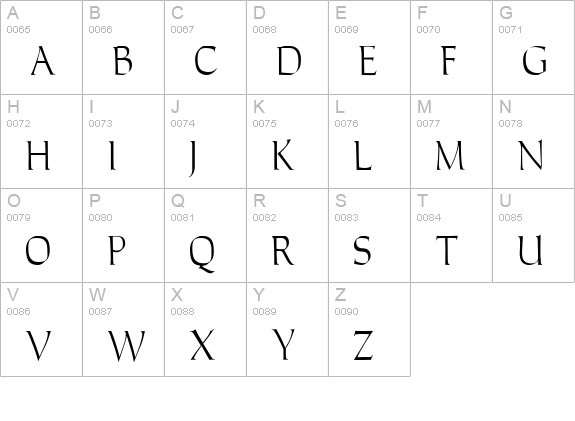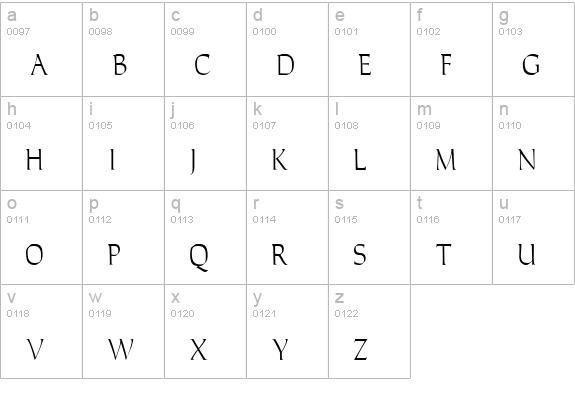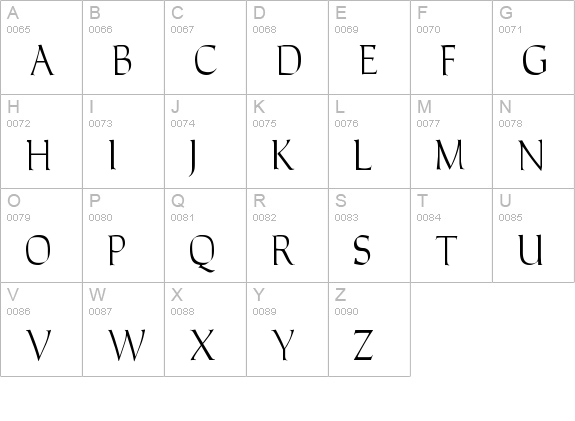
Carla Thin Normal Font Details
Carla Thin Normal is a delicate, low-contrast variant in the Carla typeface family \xE2\x80\x94 well suited to fashion editorial, minimal branding, and high-contrast display.
Carla Thin Normal font is a sleek and elegant typeface that exudes modern sophistication. With its slender letterforms and clean lines, this font is perfect for creating a refined and contemporary look in your design projects. Whether you're working on branding, editorial design, or web graphics, Carla Thin Normal font will add a touch of sophistication to your work. This versatile font is available for free download at FontsMarket.com, making it accessible to designers of all levels. Don't miss out on the opportunity to add Carla Thin Normal font to your font library and elevate your designs with its timeless style and grace. Download it today and start creating stunning visuals that stand out from the crowd.